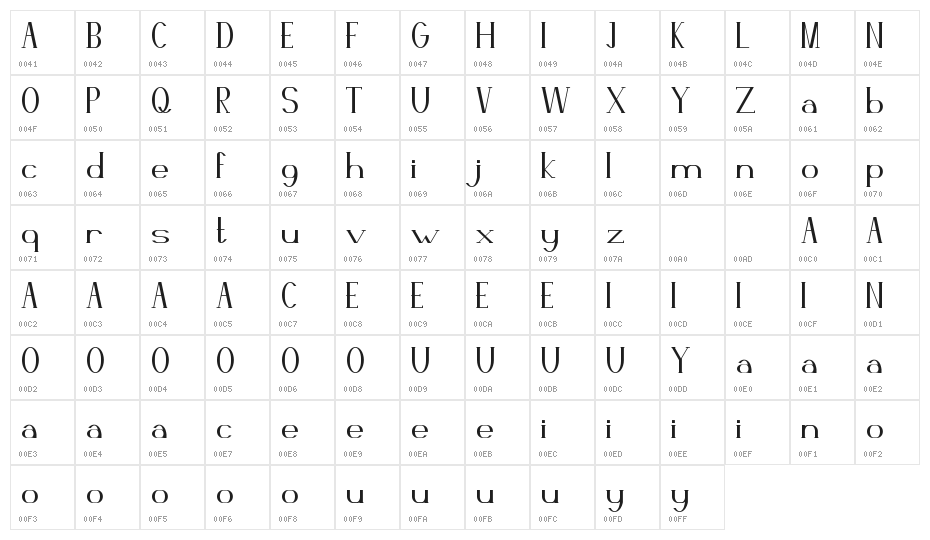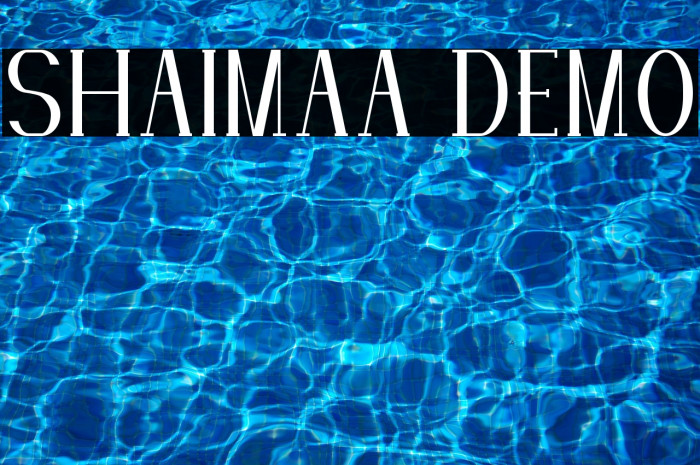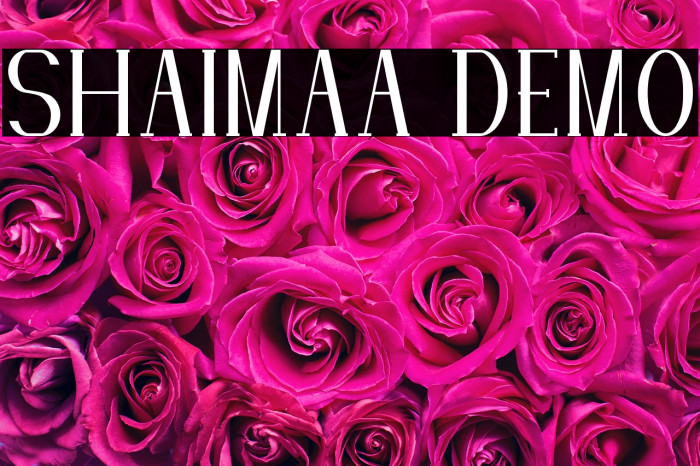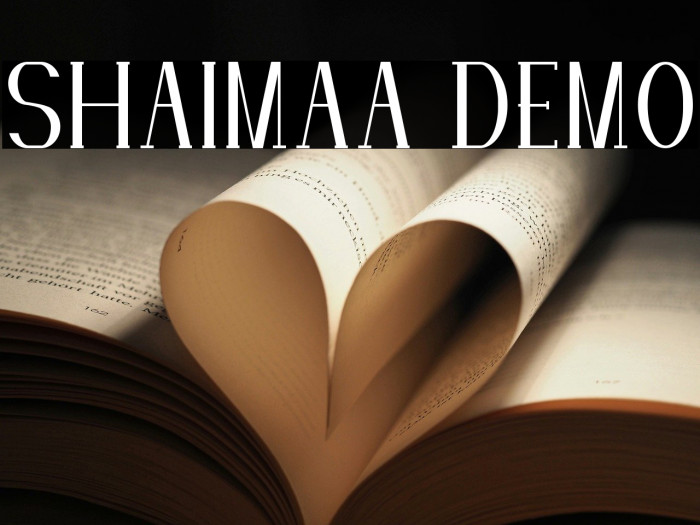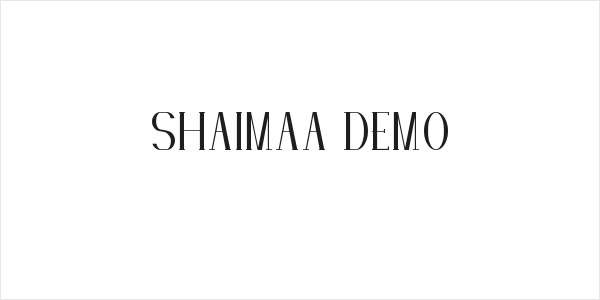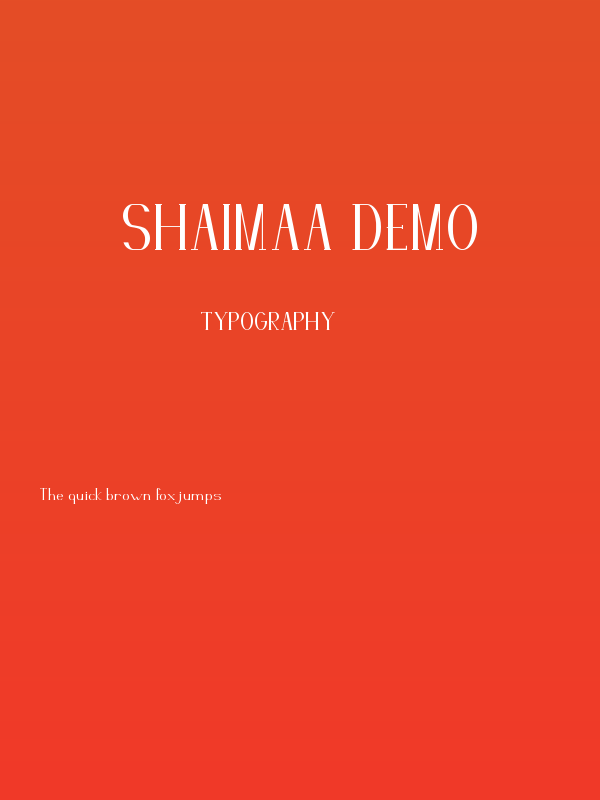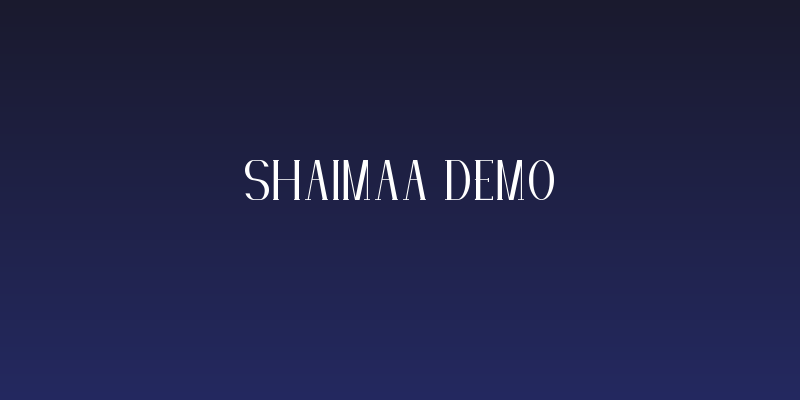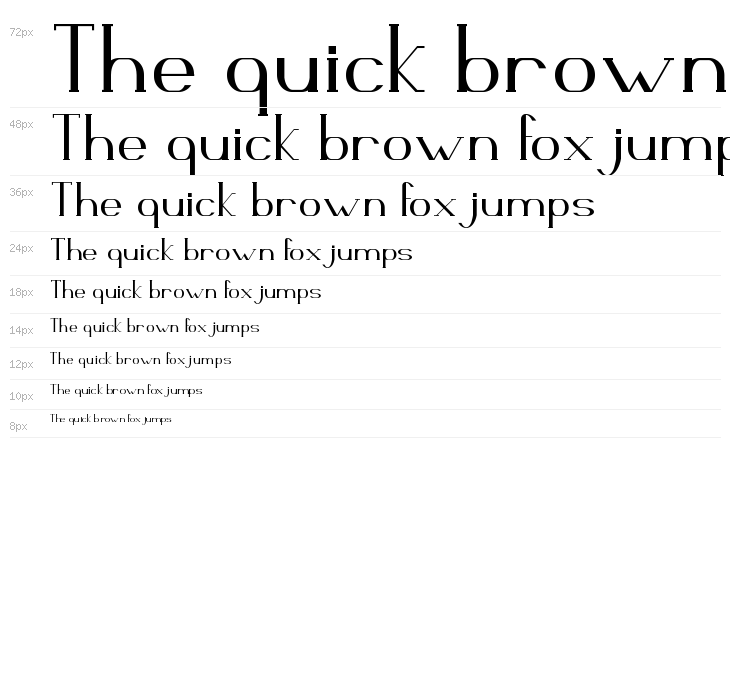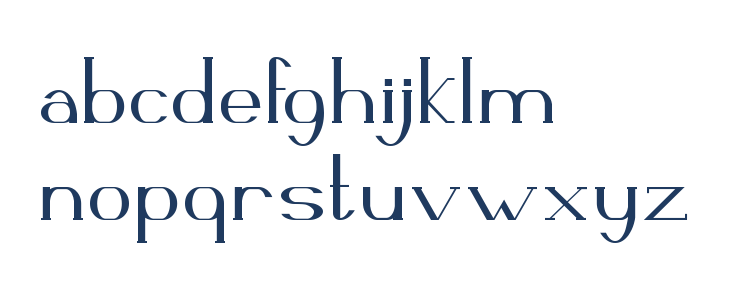
SHAIMAA DEMO Font
SHAIMAA DEMO Description
This font features a unique blend of modern and classic elements, characterized by its tall, slender letterforms and subtle serifs. The uppercase letters exhibit a distinct elegance with their elongated vertical strokes and minimalistic design. The lowercase letters maintain a consistent style, offering a harmonious balance between readability and aesthetic appeal. The numerals are designed to complement the overall style, ensuring clarity and visual coherence. Special characters are thoughtfully crafted, adding to the font's versatility. The font's design is suitable for a variety of applications, from editorial layouts to branding projects.